special font effects (pt. 1)
GLOWING FONTS
So, open Phonto with your finished graphic. I'm going to use an unfinished version of the cover for my graphic shop one called "Crown."
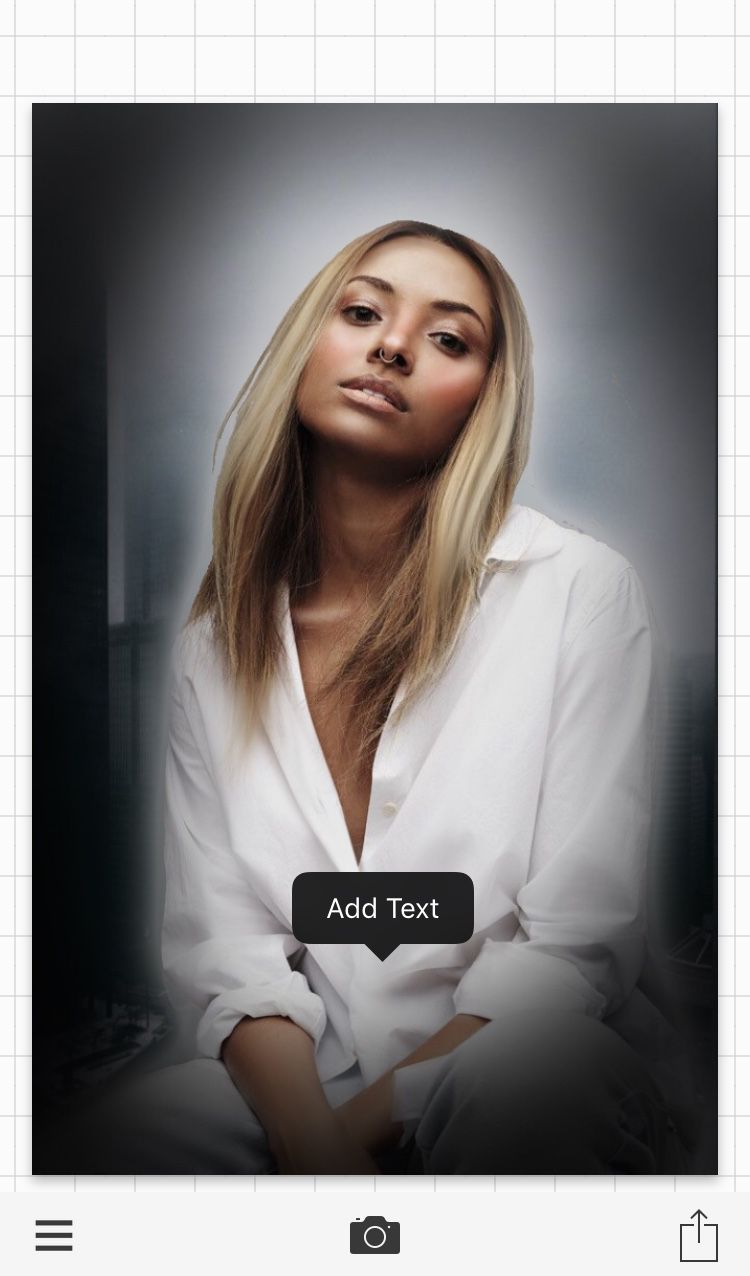
Touch the screen anywhere, and click "add text." Type what you want on your graphic and choose a font.
Click "style."
This is where you'll end up.
Click "stroke" to create on outline for your font.
Red is the size of the outline, and yellow is how much it fades to see the background.
Adjust it to your likings. I make it large enough so it's not overlapping, and see-through enough that you can see the graphic through it.
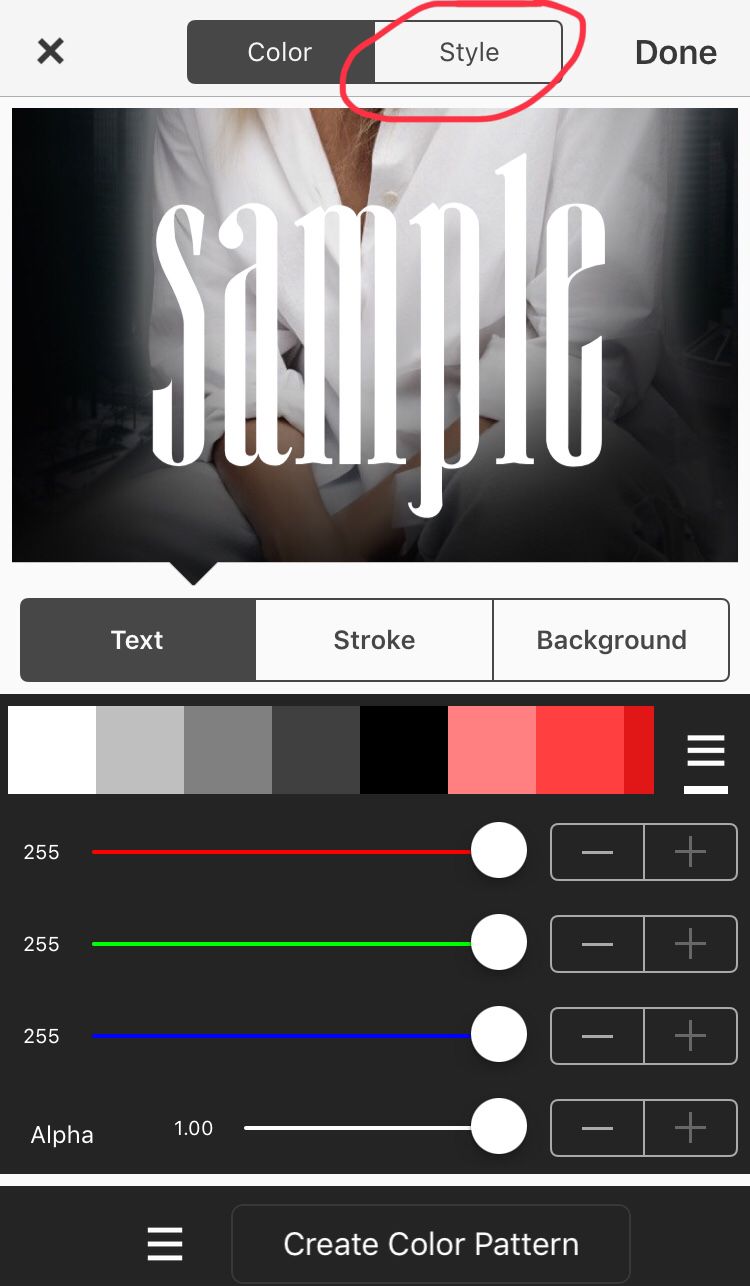
After that, click "style" again from this page.
Red is see-through levels, yellow is how blurry it is, green is left to right, and blue is up and down.
Choose a colour darker or lighter than your stroke, and adjust it until your satisfied with your glowing text!